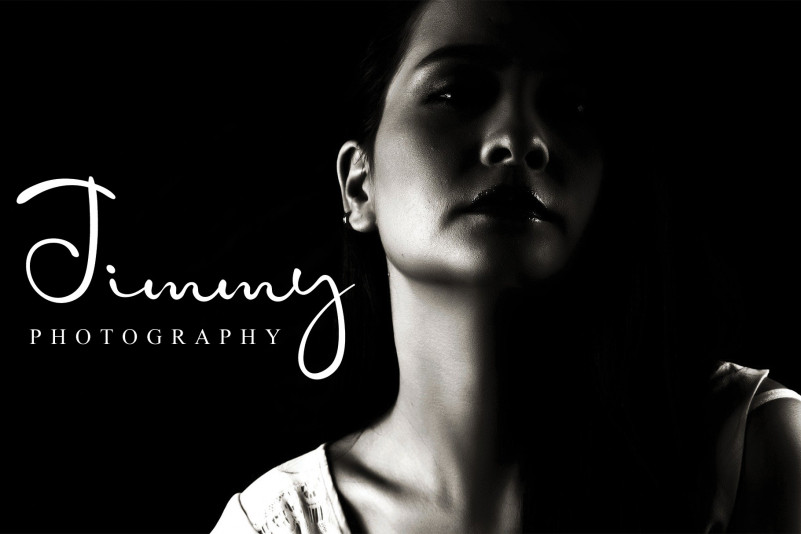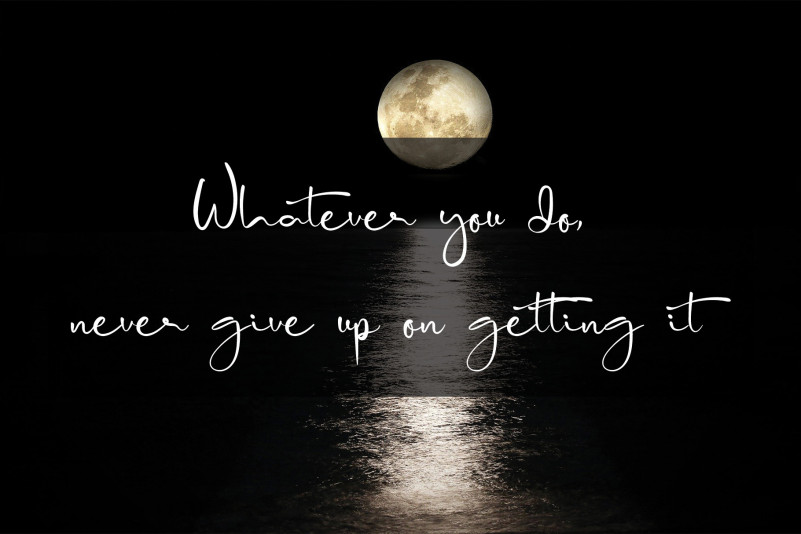
The Procreate Font
The Procreate Script Font
This is a sweet, lovely and cursive script font, that emanates sophistication and elegance. Its stylish alternates and ligatures make this font the perfect match for any project.